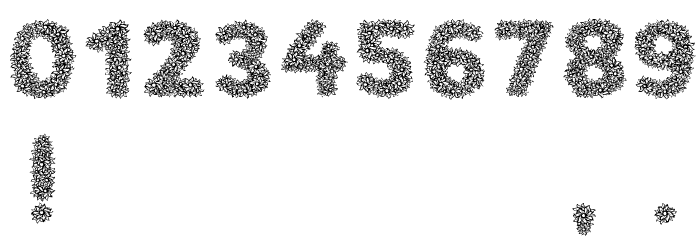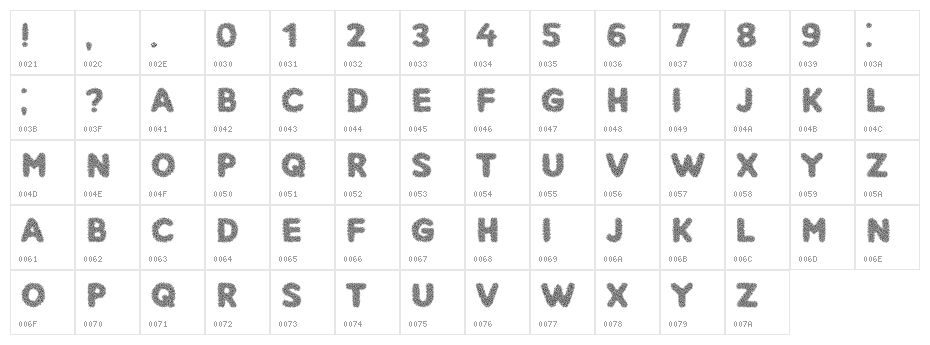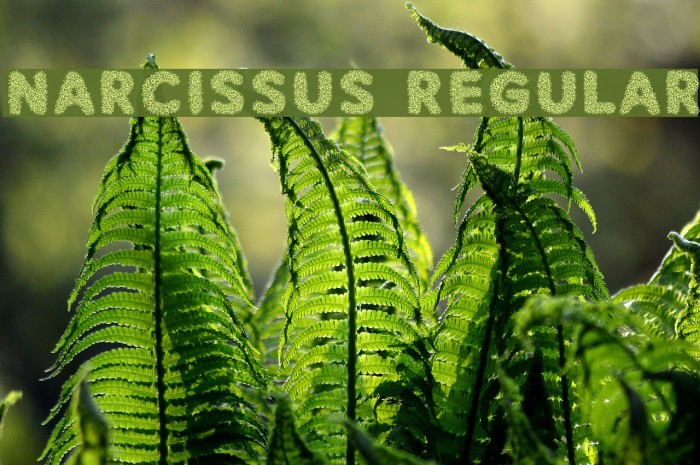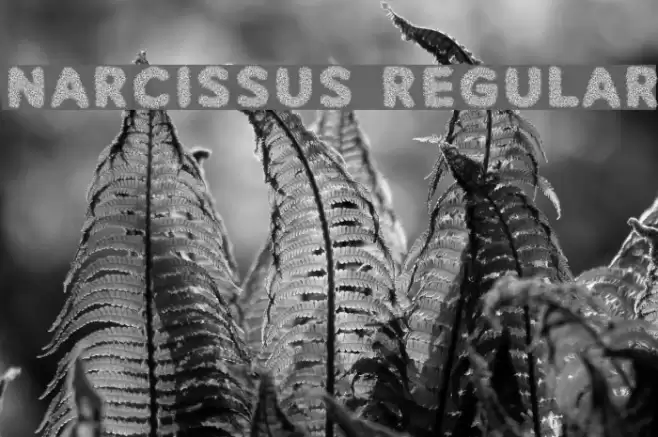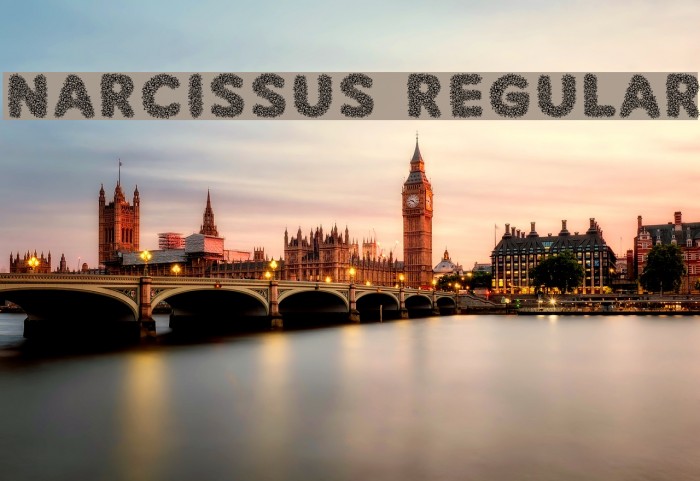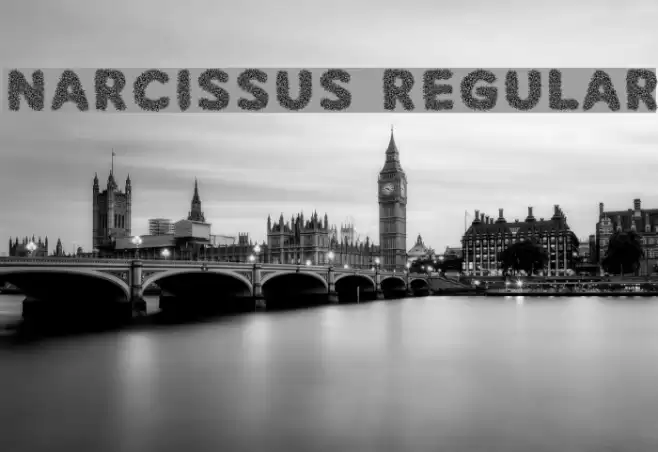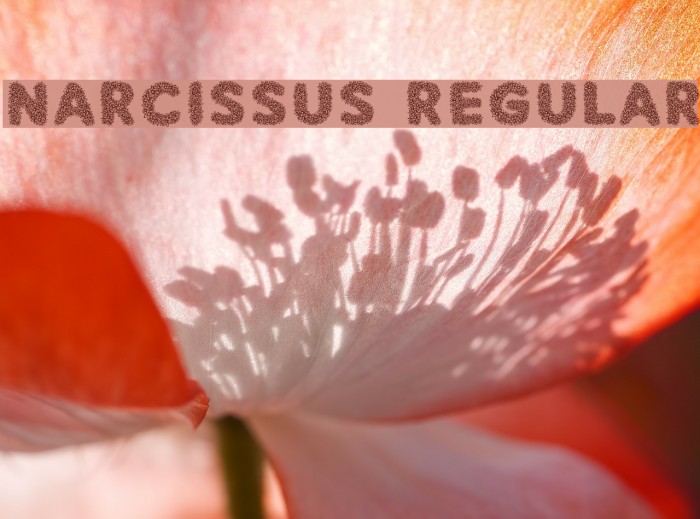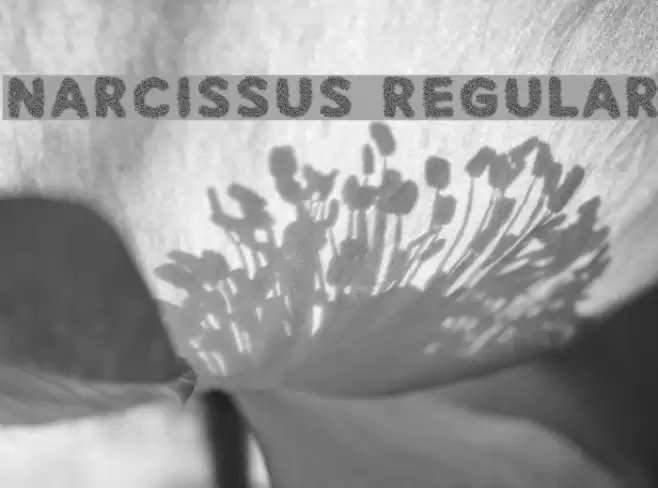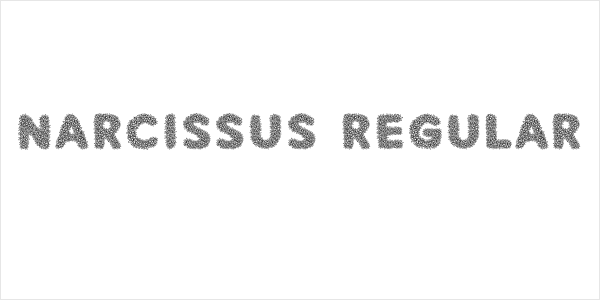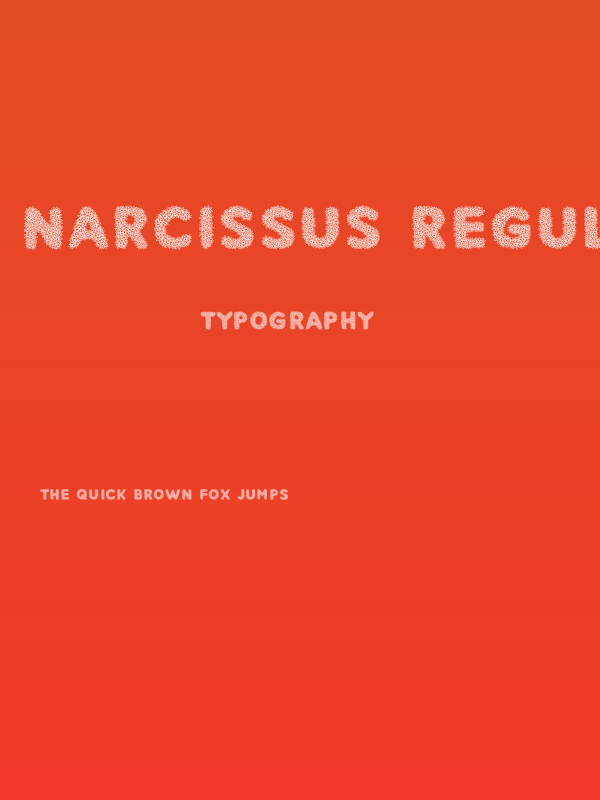
Narcissus Regular Font
Narcissus Regular Description
This font features a unique and intricate design, with each character composed of numerous small, swirling elements that create a textured and dynamic appearance. The letters are bold and have a consistent thickness, giving them a strong presence on the page. The overall look is decorative and artistic, making it stand out in any design. The characters are evenly spaced, ensuring readability despite the complex detailing. This font is ideal for projects that require a touch of creativity and flair, such as artistic posters, event invitations, or branding materials that aim to capture attention and convey a sense of elegance and sophistication.
| Proposed Projects | Ideal for artistic posters, event invitations, and creative branding materials. |